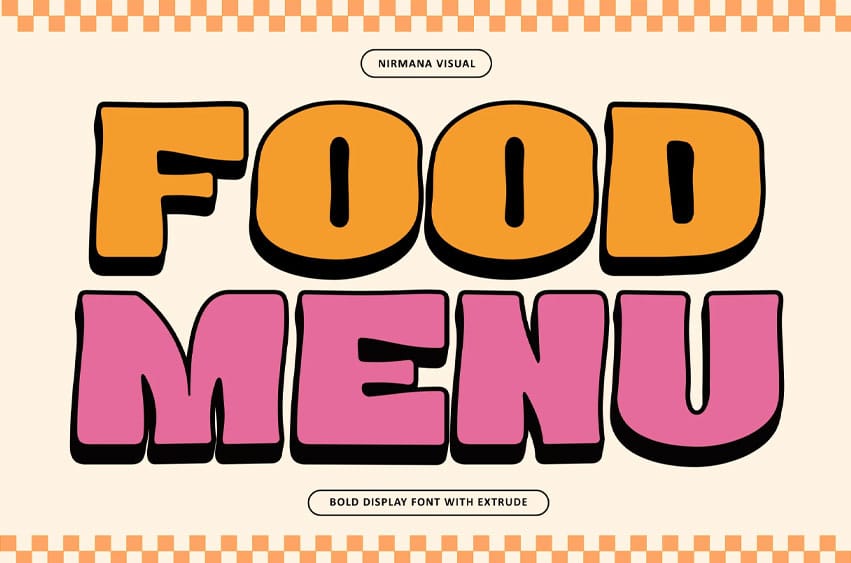
Food Menu Font offers beautiful typographic harmony for a diversity of design projects, including logos & branding, social media posts, advertisements & product designs.